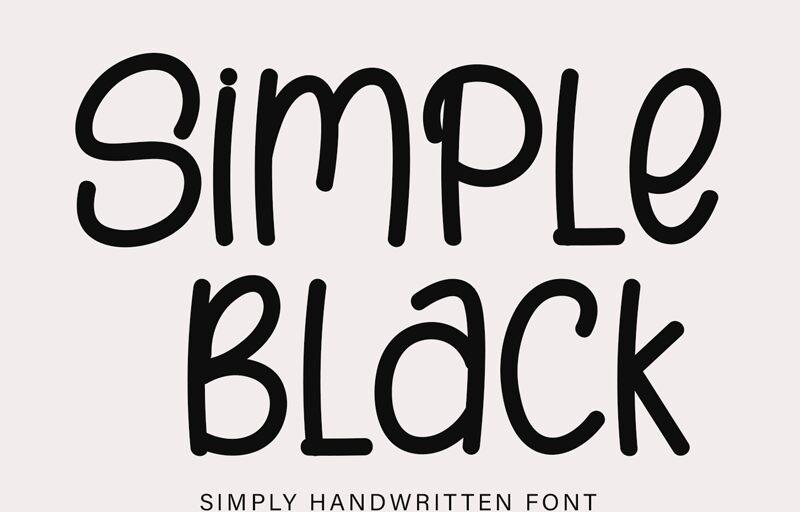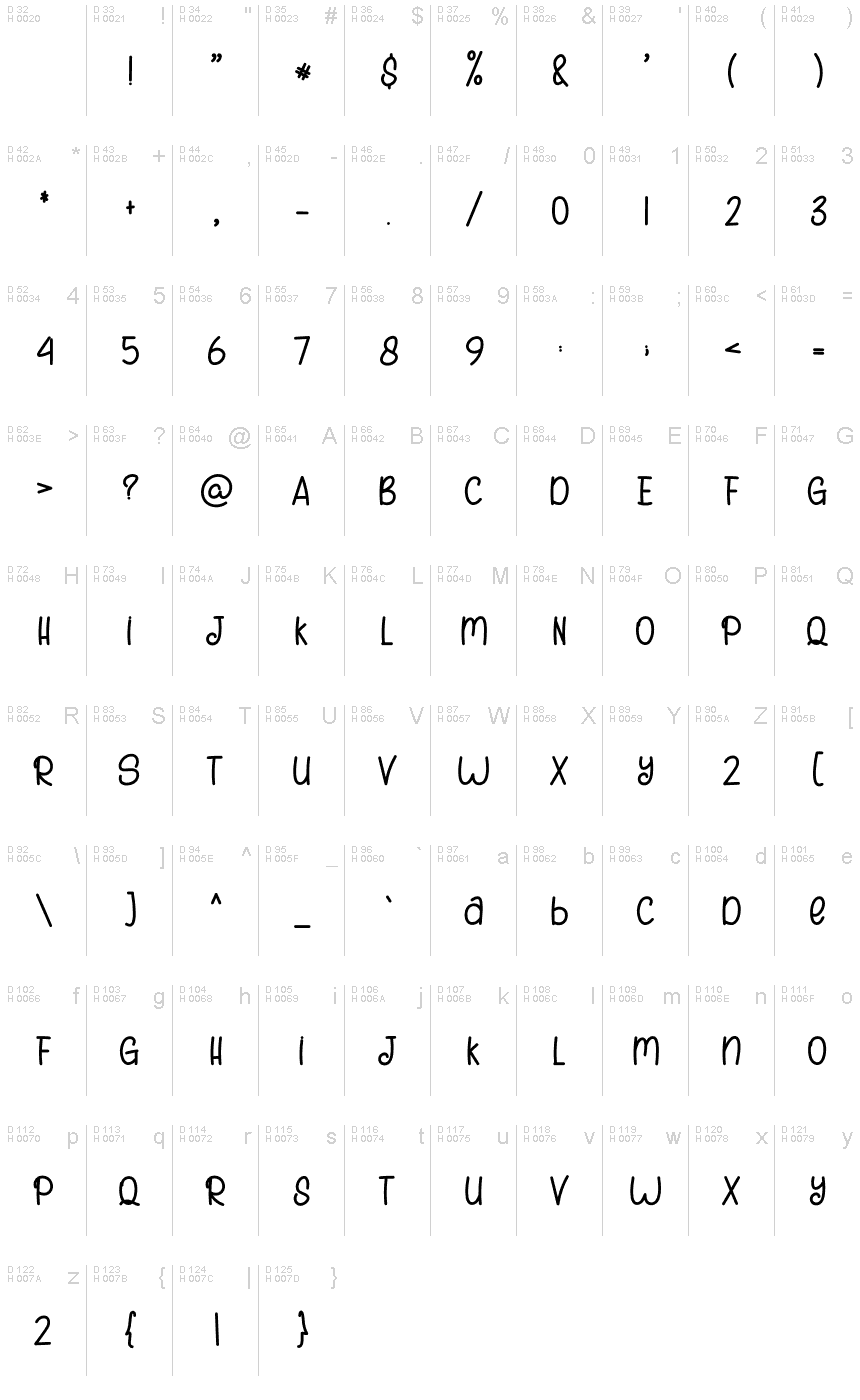
Simple Black
Simple Black, designed by Etik Fatimah, is a handwritten font that exudes both simplicity and elegance. Its semi-light weight and semi-condensed width create a clean and modern aesthetic that provides readability without compromising on style. The personal touch of Simple Black's letterforms brings an approachable warmth to any design, making it ideal for invitations, branding, and advertising where a touch of human presence is desired.
Its versatility shines in various applications; from digital graphics to print media, Simple Black has the potential to add character to social media graphics, personalized merchandise, and editorial content alike. This font is poised to enhance your creative projects with its charming appearance that bridges the gap between professional polish and inviting casualness.